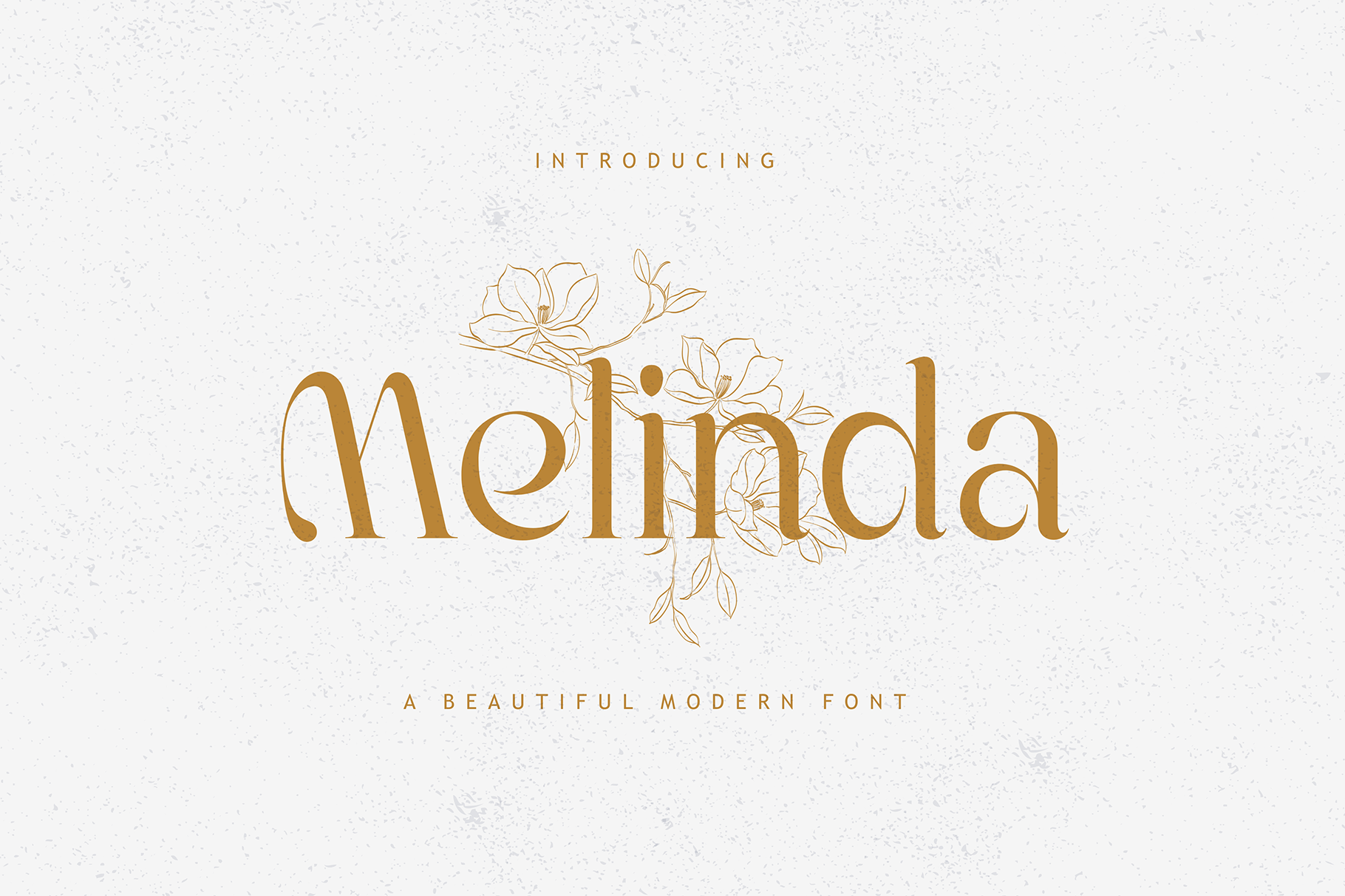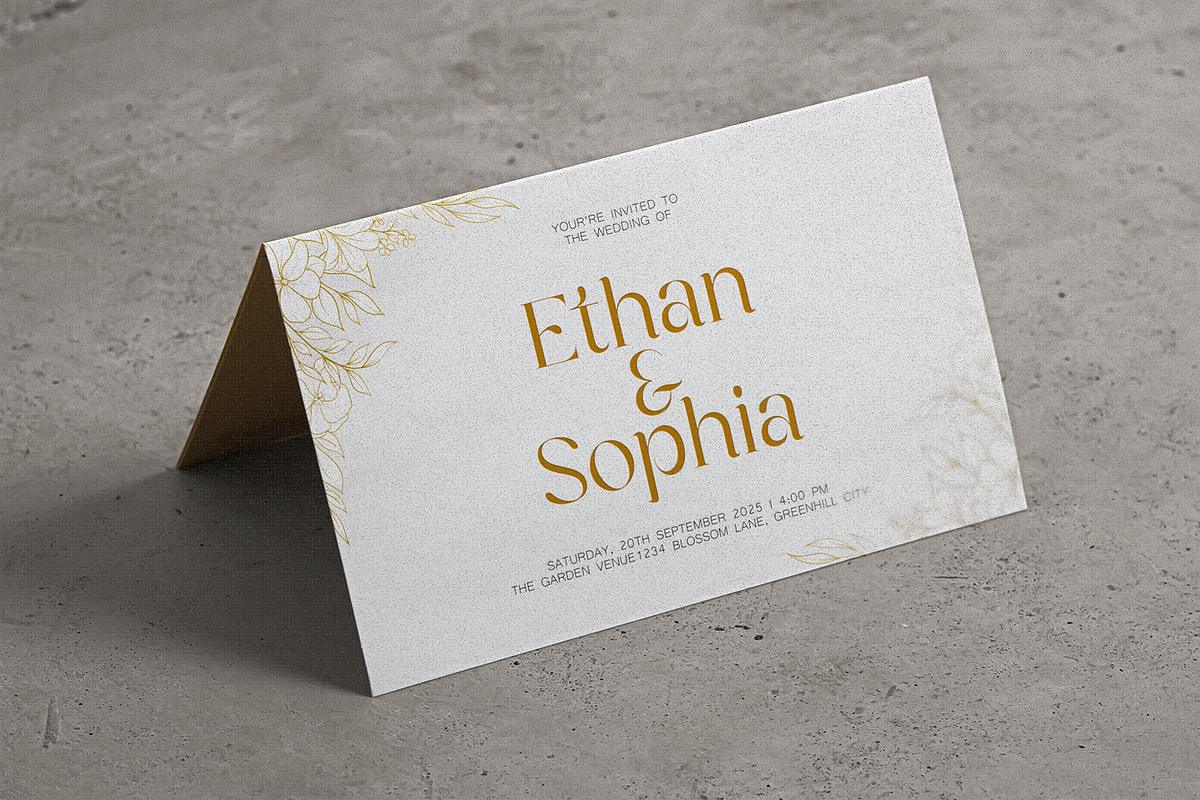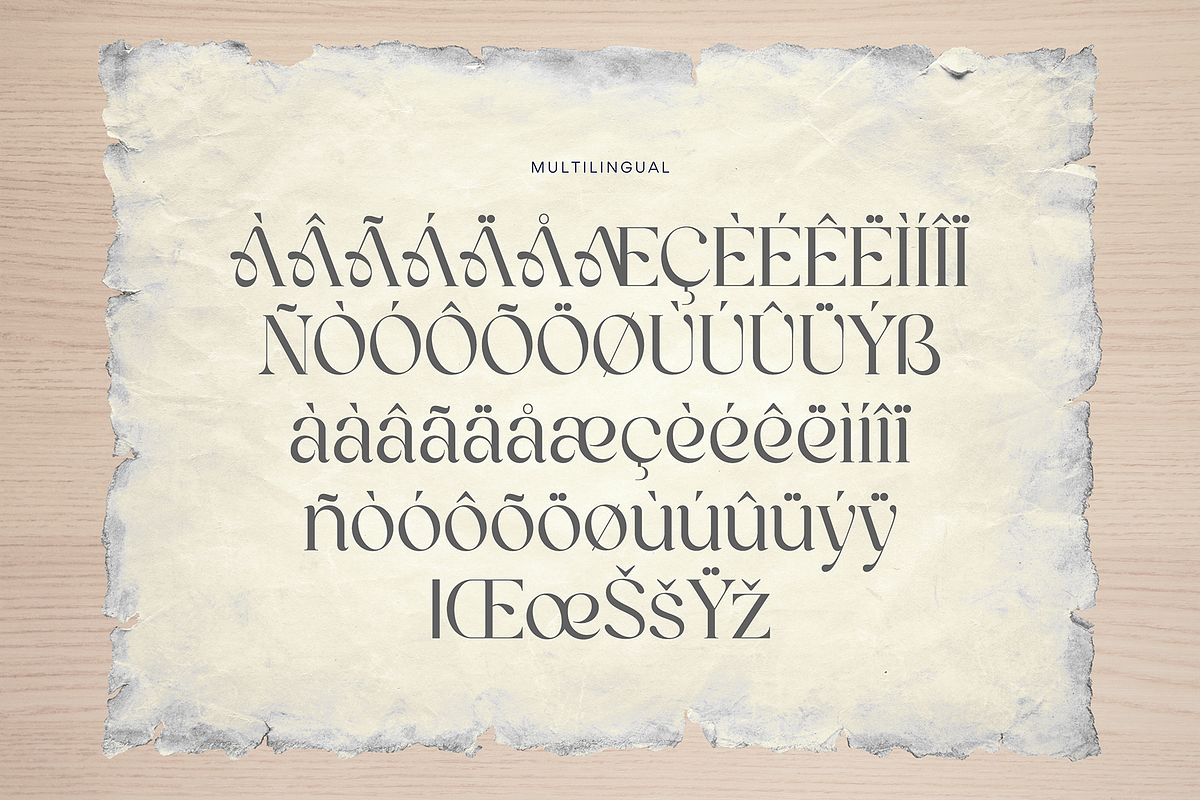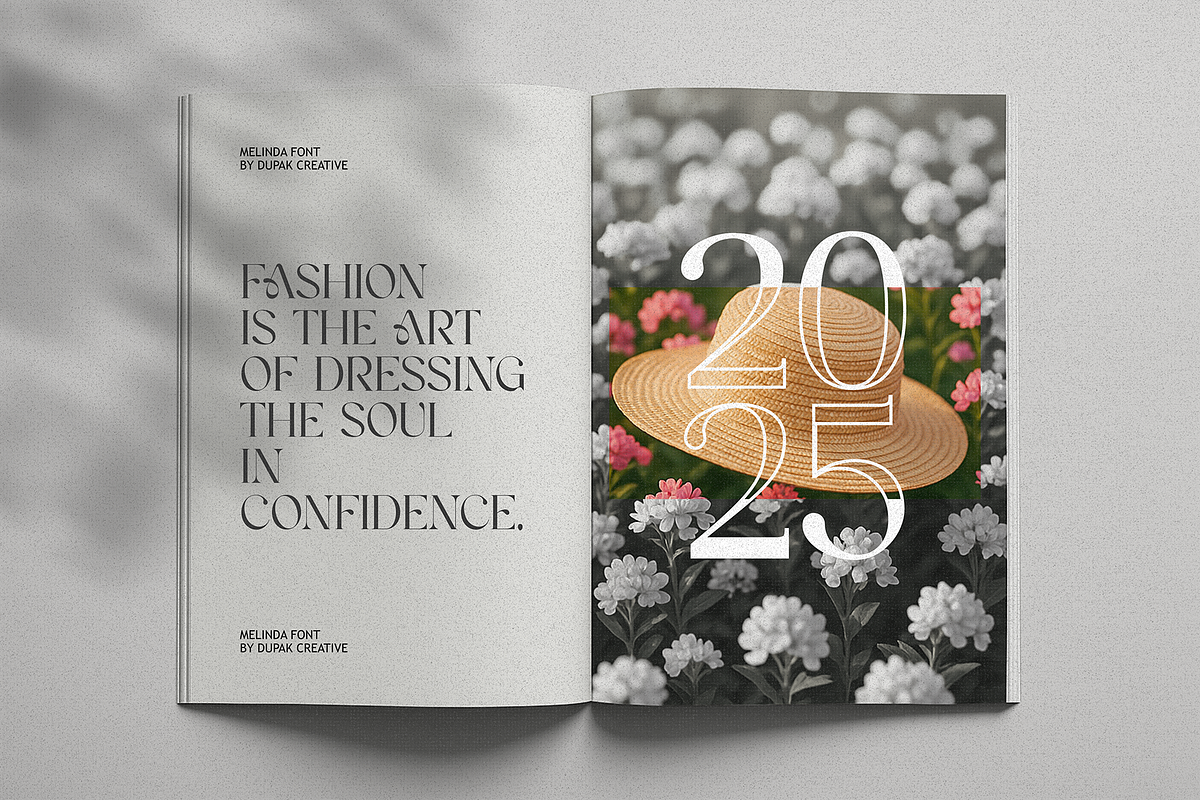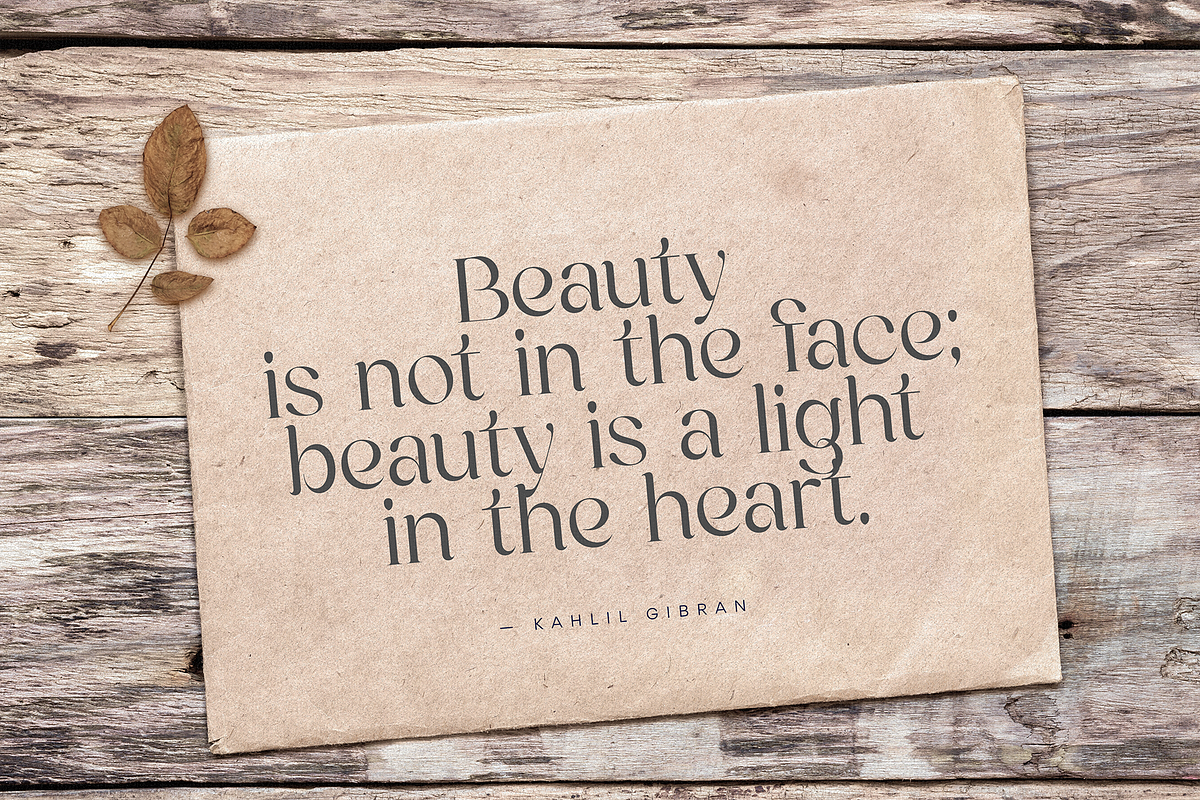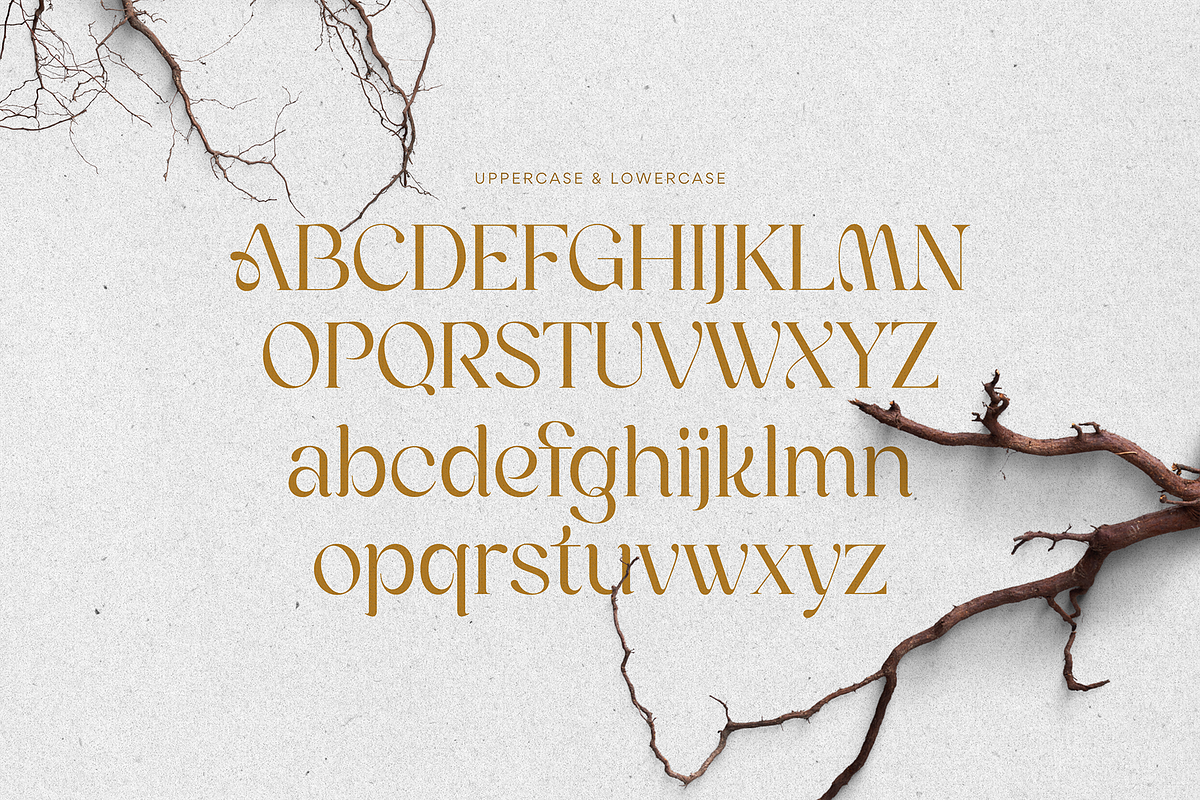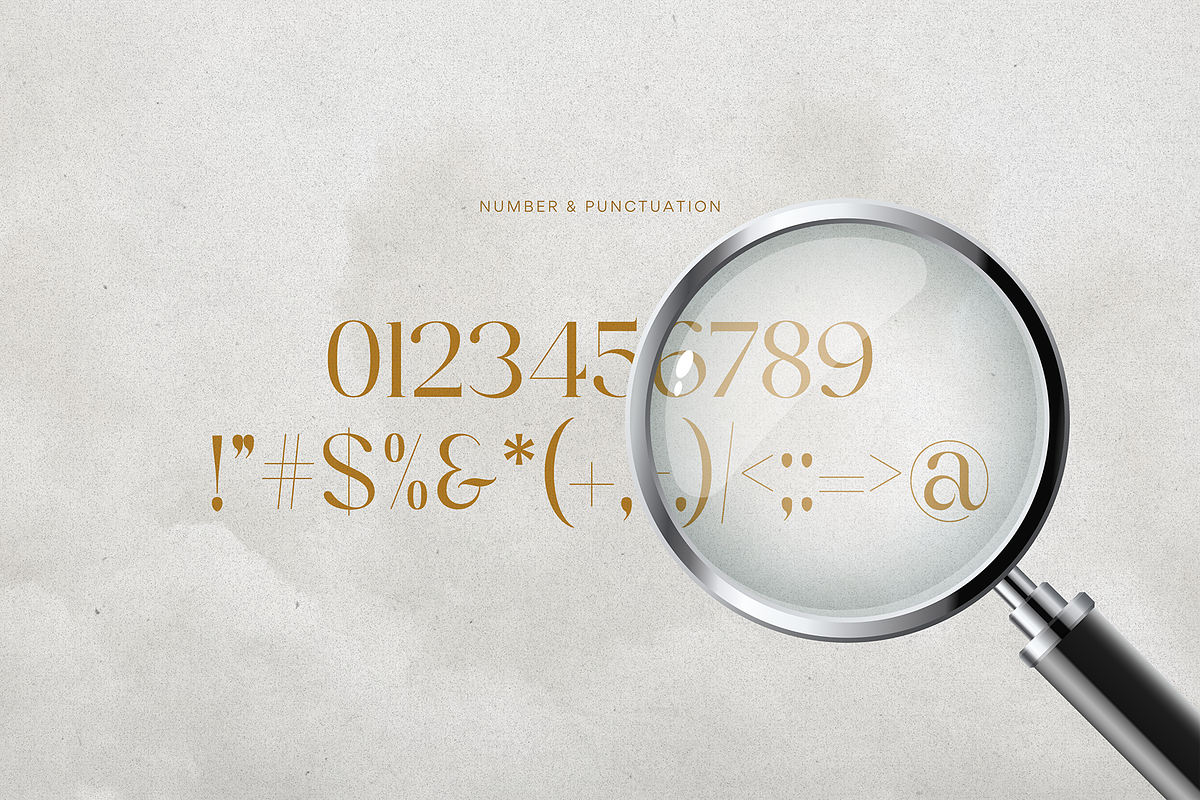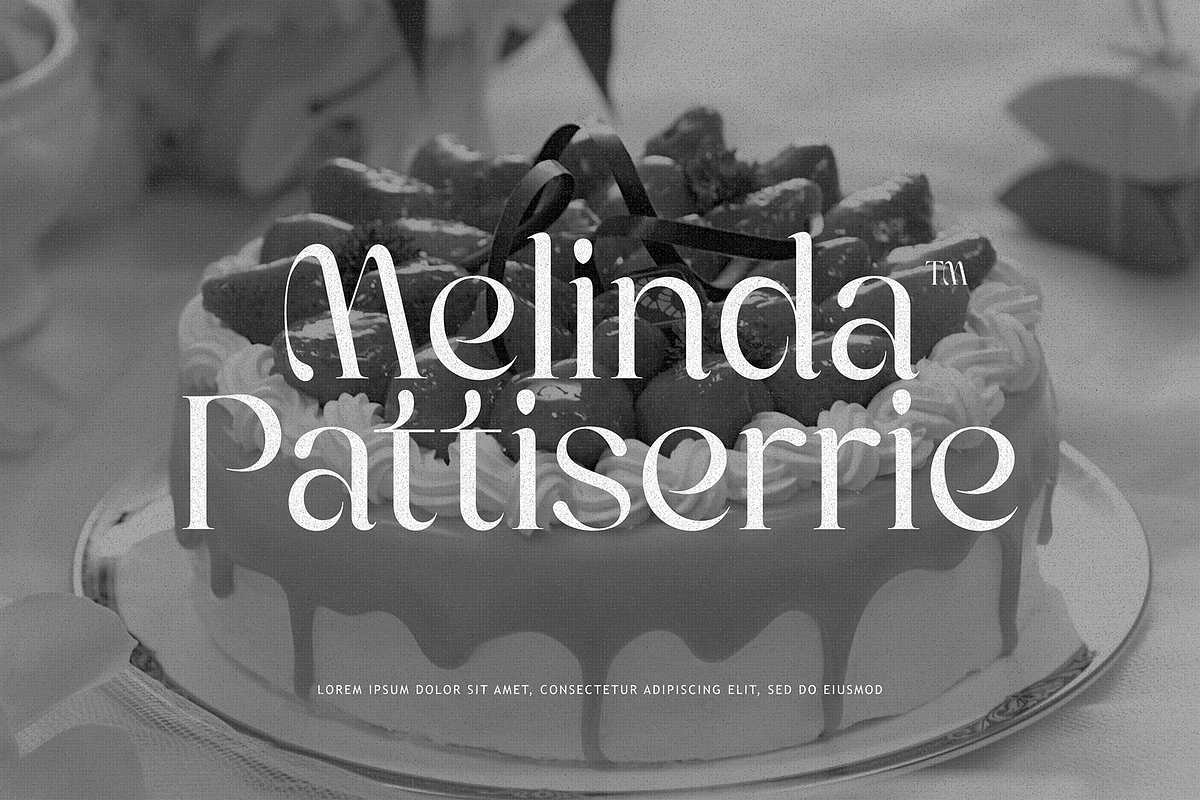
Melinda Elegant Modern Font
Melinda Font is a unique, modern display font with a unique, elegant, and modern style. It is a sans serif font perfect for branding projects, logos, social media posts, product packaging, labels, etc.